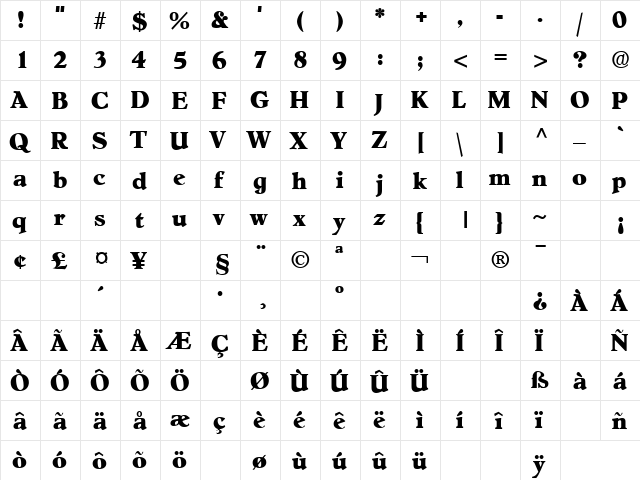
OldCentury Regular
Design Context for OldCentury Typeface
OldCentury offers clean, dependable letterforms without strong stylistic allegiance, making it a practical choice for designers who need flexibility.